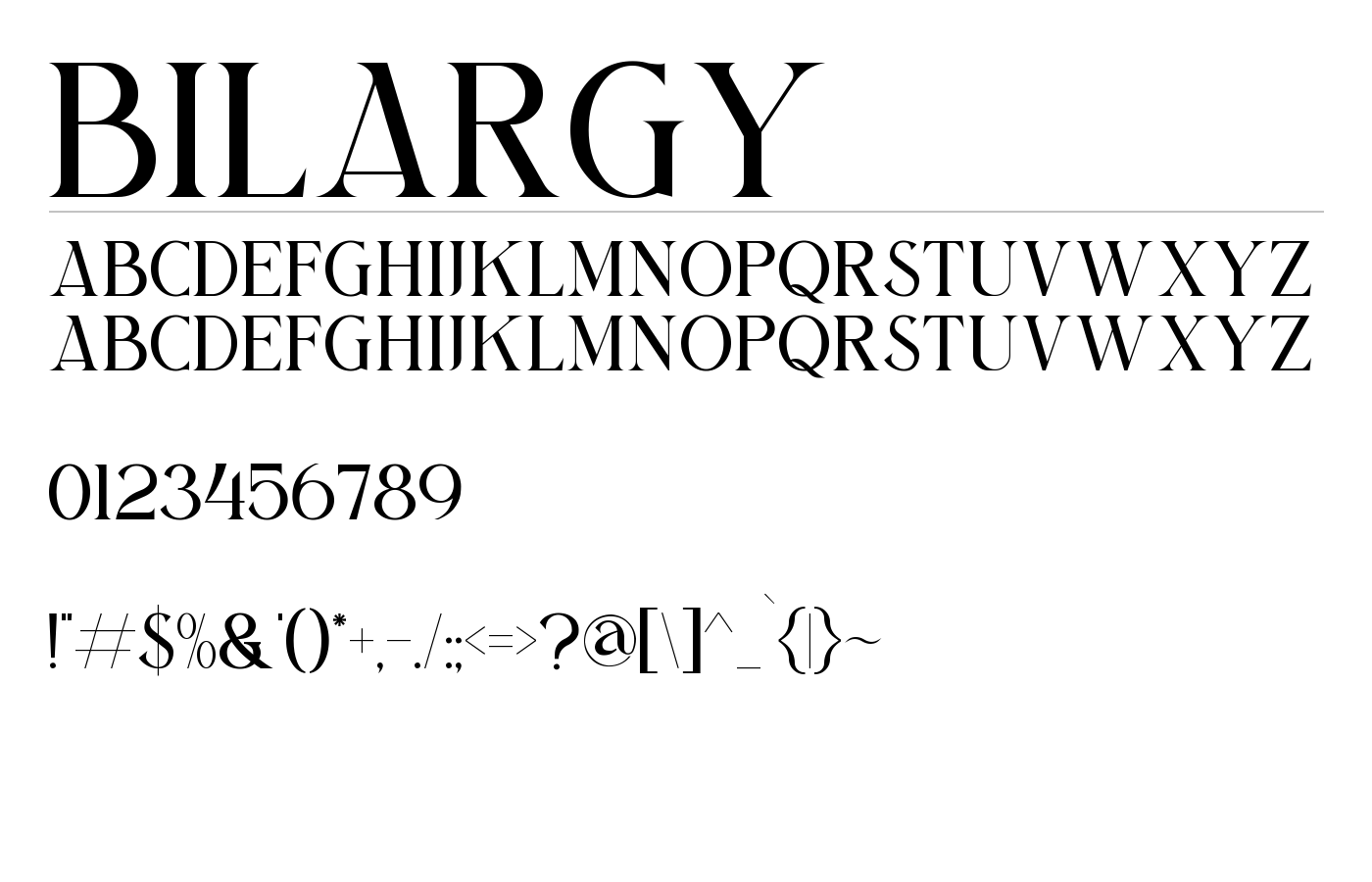
Bilargy is a refined serif font characterized by its high contrast between thick and thin strokes and elegant, sharp serifs that suggest a modern Didone style. Its tall, narrow letterforms with distinctive features like the curved tail of the Q and the graceful ampersand make it ideal for luxury branding, editorial headlines, and sophisticated design projects. This font brings a sense of classic elegance and contemporary style, perfect for brands seeking a polished and stylish appearance.
BILARGY Font
About BILARGY Font
| Font family | BILARGY Font |
| Designer | Rio Anugrah Saputro |